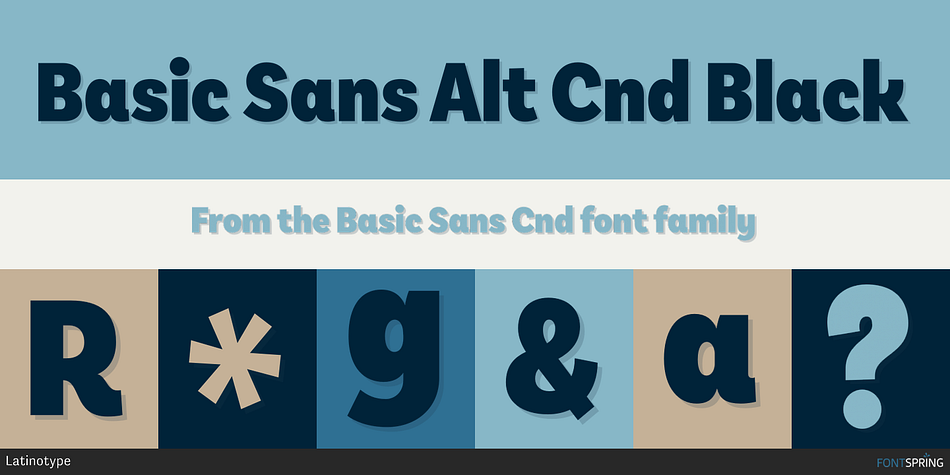
Basic Sans Alt Cnd Black
Designed by Daniel Hernández, Basic Sans Cnd is a sans serif font family. This typeface has twenty-eight styles and was published by Latinotype.
Basic Sans Cnd: A new sans.
Designed by Daniel Hernández
Basic Sans Cnd is a narrower version of Basic Sans. It is a family of Grotesque features with a functional, neutral and seeming clean style that looks to keep a neutral (or basic) appearance on paper, but including lots of details that give it a unique personality.
Basic Sans Cnd is a sans-serif typeface well-suited for publishing projects, medium-sized text, branding, posters, headlines and more!
This font family comes in 7 weights-ranging from Thin to Black-plus matching italics and it has a set of 416 characters that support 206 different languages.